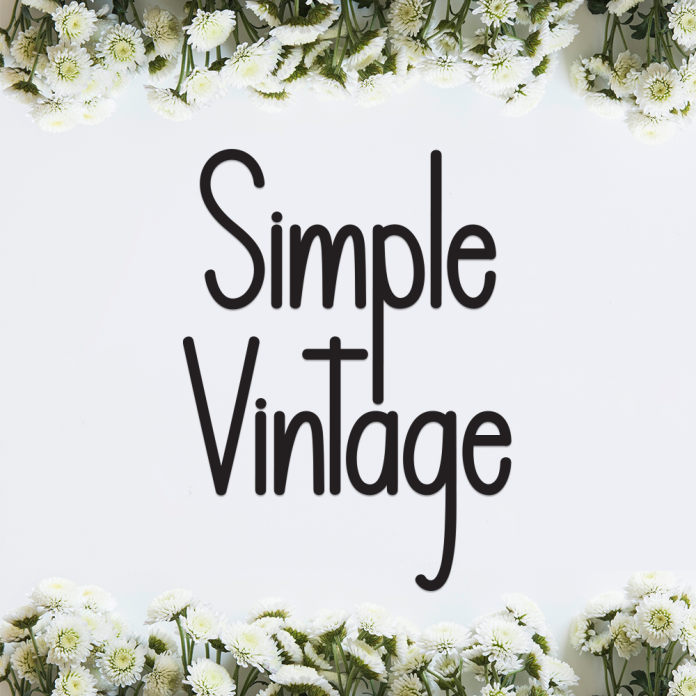
Simple Vintage is a stylish display font that blends classic vintage aesthetics with clean, modern touches. It carries the charm of old-school typography while maintaining a sleek and minimalist form — perfect for those seeking a retro vibe without too much embellishment.
Ideal for logos, packaging, posters, signage, and editorial layouts that aim to evoke nostalgia while staying contemporary.
Display style with a retro, vintage influence
Strong letterforms with balanced proportions
Great for branding, headlines, and typographic posters
Let your designs speak with timeless elegance through the clean retro style of Simple Vintage.